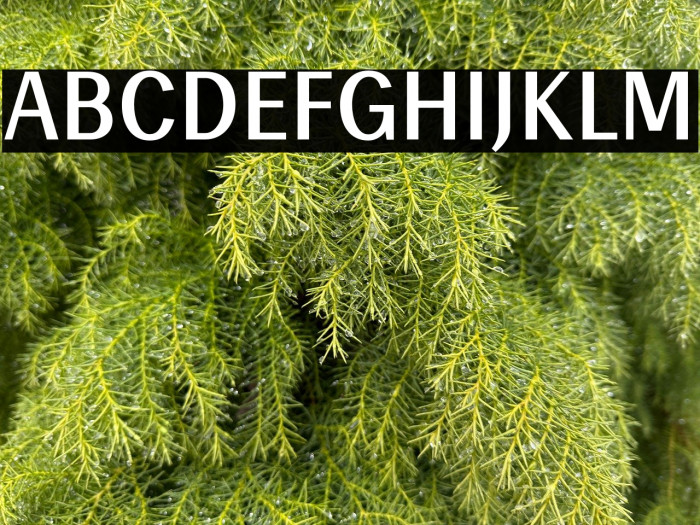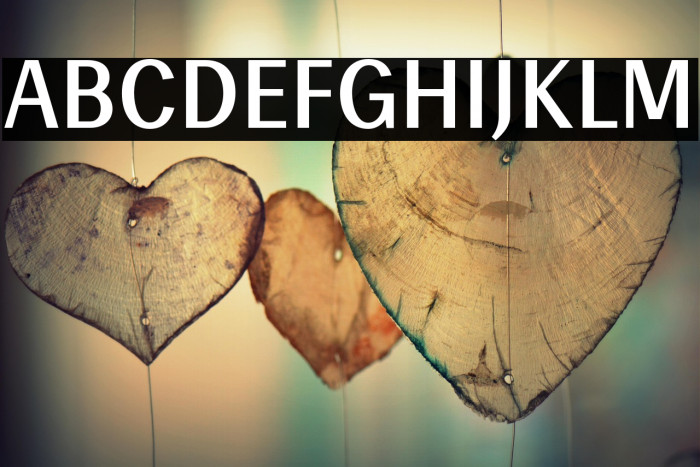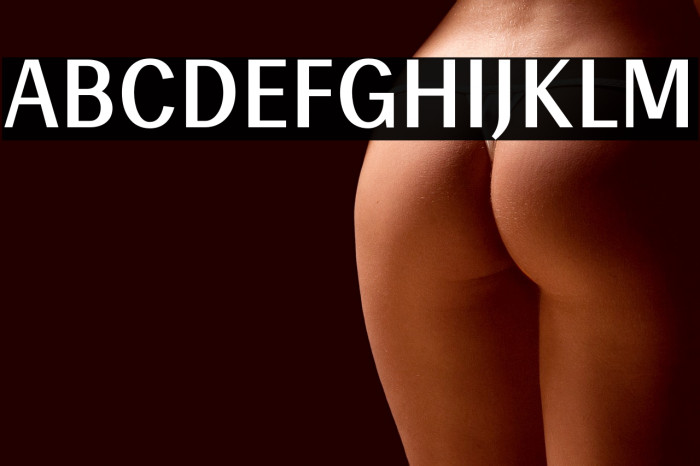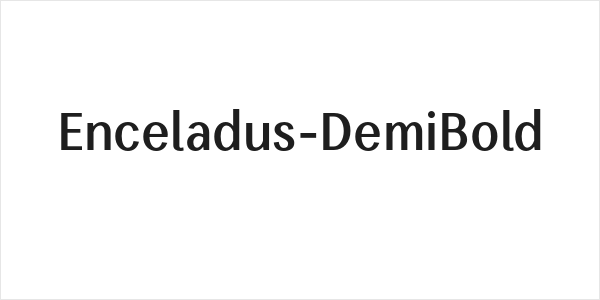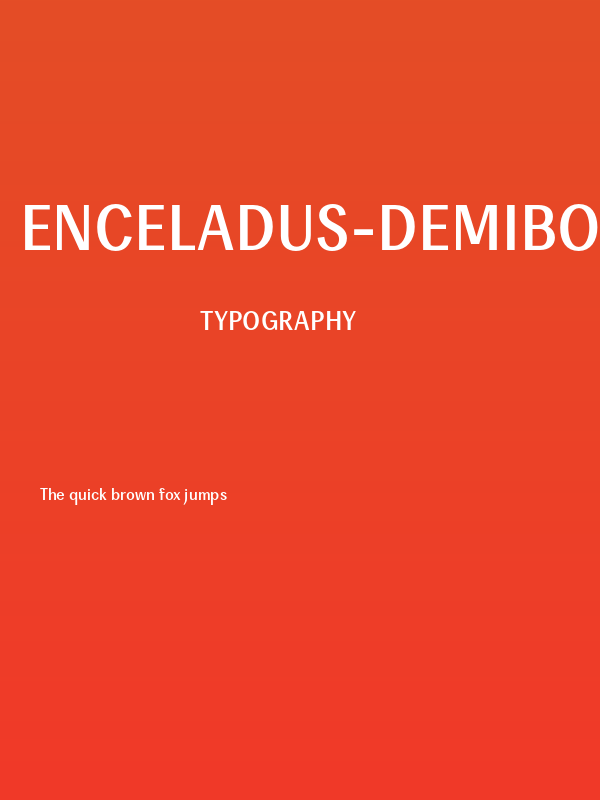
Enceladus-DemiBold Font
Enceladus-DemiBold Description
This font features a clean and modern sans-serif design, characterized by its balanced proportions and smooth curves. The letters are crafted with precision, offering a harmonious blend of geometric shapes and organic flow. The uppercase letters stand tall with a uniform height, while the lowercase letters maintain a consistent baseline, ensuring readability. Numerals are clear and distinct, making them suitable for various applications. Special characters are well-integrated, maintaining the overall aesthetic. The font's simplicity and elegance make it versatile for both digital and print media.
| Proposed Projects | Ideal for branding, web design, advertising, and editorial layouts. |